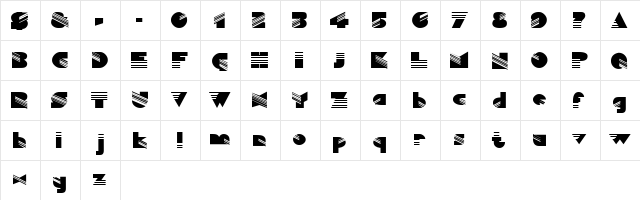
Hesitate Normal
Design Context for Hesitate Typeface
Hesitate is a composed and adaptable typeface that performs quietly and consistently across a wide range of design contexts.